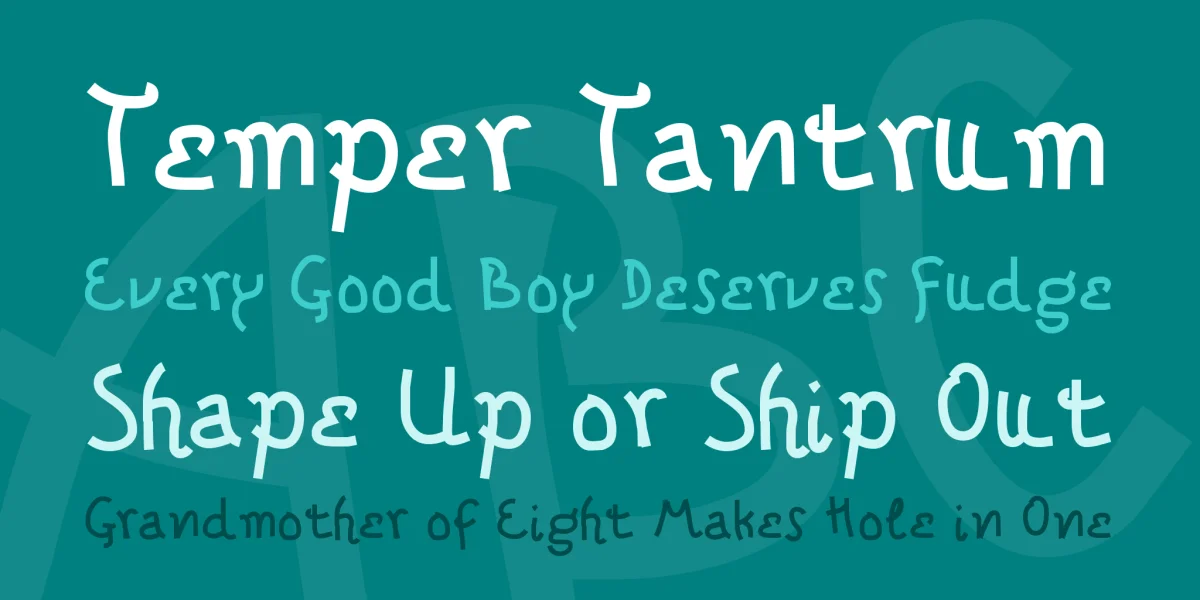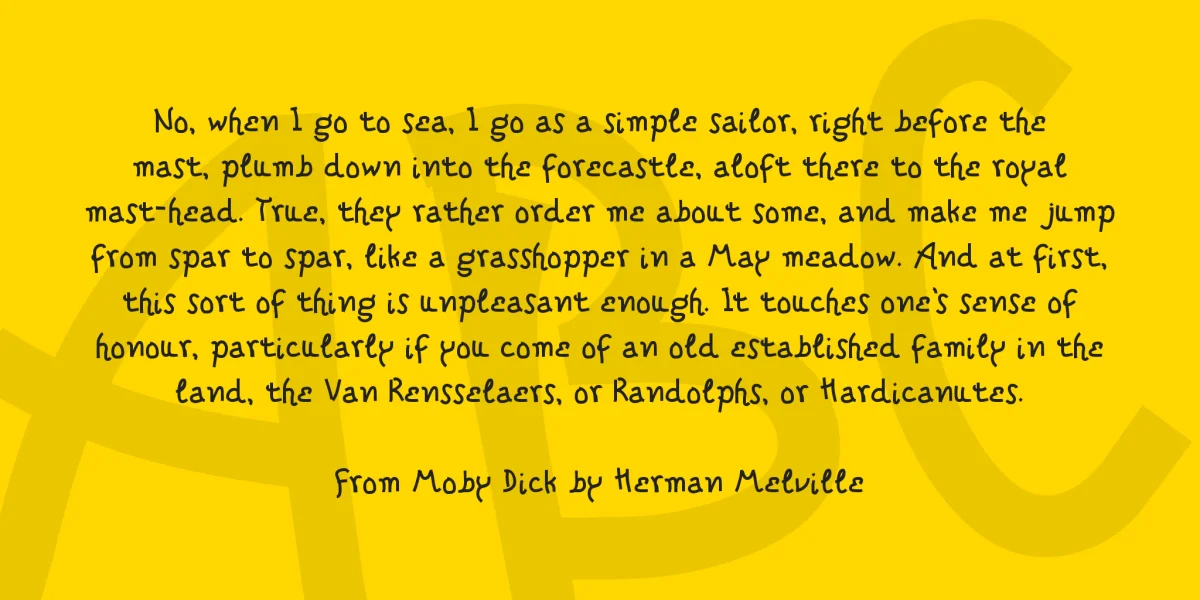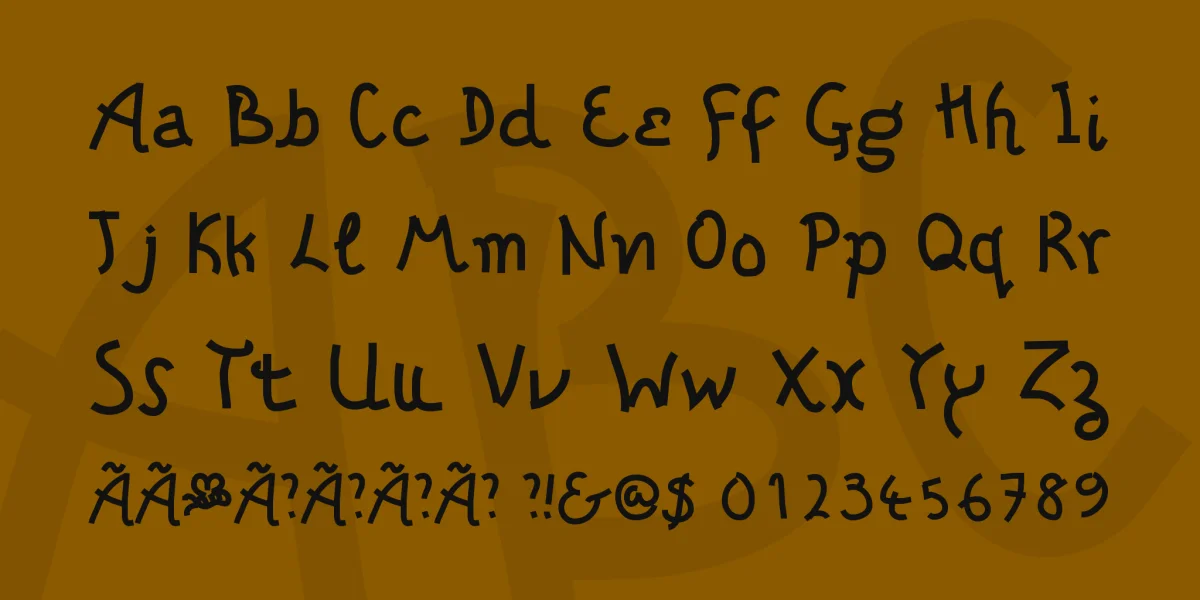
New release! A face with which I am extremely pleased, it has a certain downbeat air. Most fonts which look like this tend to get given really 'zany' upbeat names and I don't want to do that. Anyway, this is my first face to include a wealth of accented characters and other extra bits. It works great at a variety of sizes too.